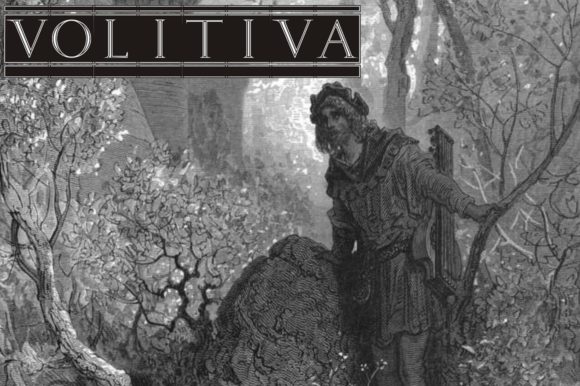
Unleash the Power of Expression with Volitiva Font: A Typographic Masterpiece Inspired by History
In the realm of visual communication, fonts hold the key to unlocking emotions, conveying messages, and captivating audiences. Volitiva Font, a stunning display typeface, emerges as a testament to the enduring power of typography. Crafted with meticulous attention to detail by Intellecta Design, Volitiva is more than just a font; it's an artistic expression that breathes life into your creative endeavors.
Step into the world of Volitiva, where the grandeur of Roman capitals from the 16th century seamlessly blends with the visual allure of engraved gravestones. This unique fusion results in a font that exudes both a timeless elegance and a contemporary edge, making it an ideal choice for designers, artists, and anyone seeking to make a lasting impact.
With its bold strokes and commanding presence, Volitiva commands attention, leaving an indelible mark on the hearts and minds of your audience. Whether you're creating logos, posters, invitations, or any other visual masterpiece, Volitiva becomes your trusted ally, elevating your designs to new heights of sophistication and impact.
Harness the emotive power of Volitiva and watch as your words come alive, stirring emotions and igniting imaginations. Let your creativity soar as you explore the boundless possibilities that await you with this exceptional font.